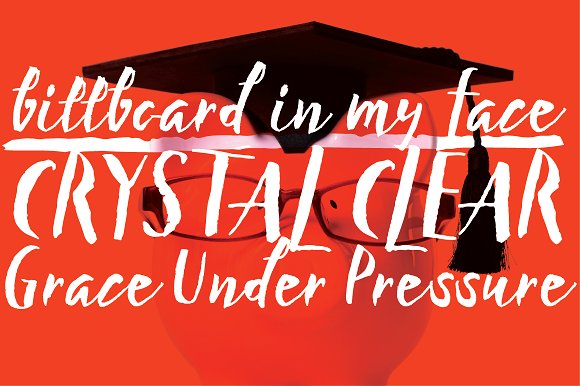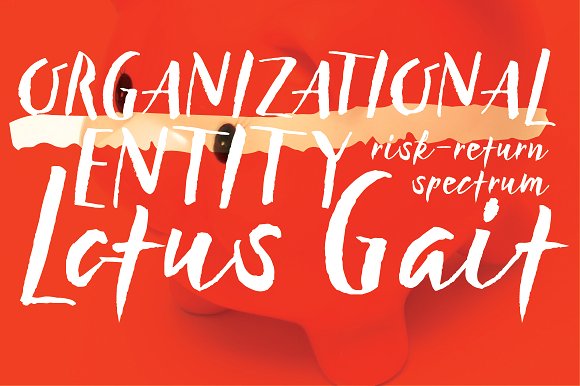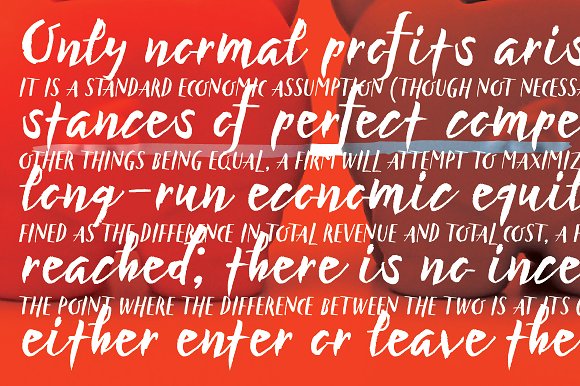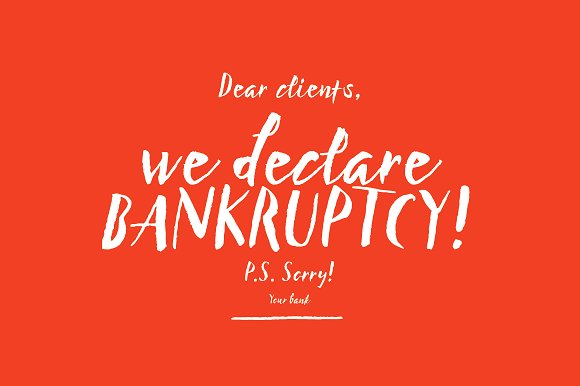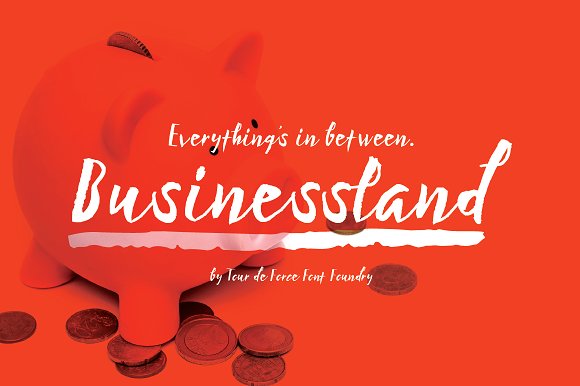
Introducing Businessland Font: A Unique Script Family for Modern Designs
In the world of typography, fonts play a crucial role in conveying the tone and personality of a brand. For designers and crafters, finding the perfect font that combines elegance and ruggedness can be a daunting task. However, look no further than Businessland Font, a script family that seamlessly blends sophistication with a rough, edgy look.
The Businessland Font Family
Businessland is a thoughtfully designed script family that boasts an impressive 372 glyphs, including codepage support for Eastern Europe and Baltic countries. This extensive character set makes it an excellent choice for designers working on projects that require a high level of customization and versatility.
Elegant and Rough: A Perfect Balance
What sets Businessland Font apart is its unique ability to balance elegance and roughness. The characters in this font family exhibit a refined, sophisticated look, while also showcasing a rough, hand-crafted feel. This contrast creates a visually appealing effect that can add depth and character to any design.
Key Features of Businessland Font
• 372 glyphs: Businessland Font includes a vast range of characters, ensuring that designers have ample options for customization.
• Codepage support: With support for Eastern Europe and Baltic countries, this font family is ideal for projects that require a broad character set.
• Elegant and rough look: Businessland Font’s unique blend of sophistication and ruggedness makes it perfect for designs that require a distinctive touch.
Use Cases for Businessland Font
Businessland Font is an incredibly versatile script family that can be used in a variety of design projects, including:
• Branding and logos: The elegant and rough look of Businessland Font makes it an excellent choice for creating unique and memorable brand identities.
• Packaging design: Add a touch of sophistication and ruggedness to your packaging designs with Businessland Font.
• Advertising and marketing materials: Use Businessland Font to create eye-catching advertisements, brochures, and other marketing materials that require a distinctive typographic style.
• Digital and print media: Businessland Font is suitable for use in digital and print media, including websites, social media graphics, and print publications.
Why Choose Businessland Font?
In a sea of fonts, Businessland Font stands out for its unique blend of elegance and roughness. Here are just a few reasons why designers and crafters should consider adding Businessland Font to their toolkit:
• Unique aesthetic: Businessland Font offers a distinctive look that can help designers create memorable and impactful designs.
• High level of customization: With 372 glyphs and codepage support, Businessland Font provides ample opportunities for customization and fine-tuning.
• Versatility: Businessland Font can be used in a wide range of design projects, from branding and packaging to advertising and digital media.
Businessland Font is a script family that truly stands out in the world of typography. Its unique blend of elegance and roughness, combined with its extensive character set and versatility, make it an excellent choice for designers and crafters. Whether you’re working on a branding project, packaging design, or advertising materials, Businessland Font is sure to make a lasting impression.